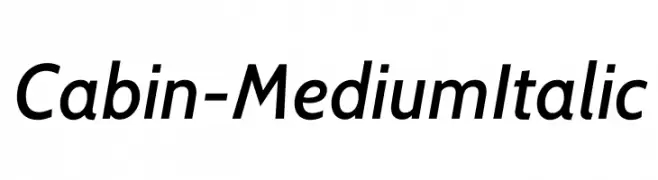
A modern, italic sans-serif font with medium weight and smooth strokes.
A modern, italic sans-serif font with medium weight and balanced proportions.